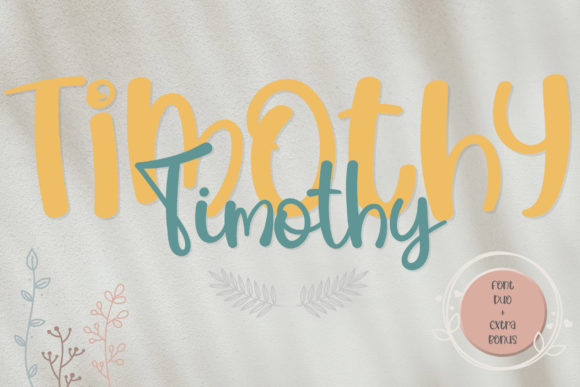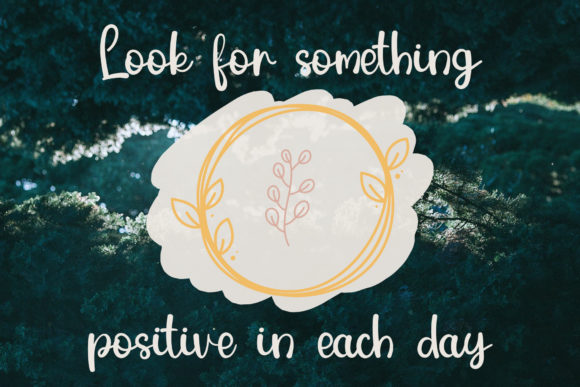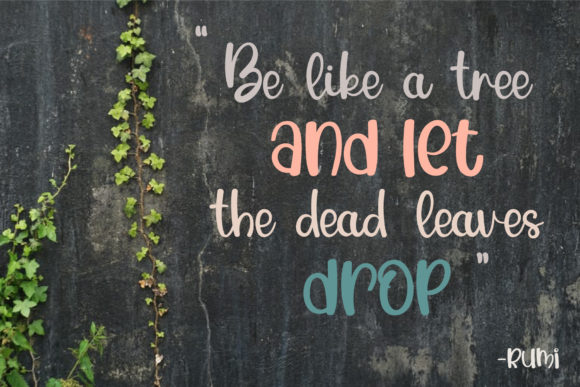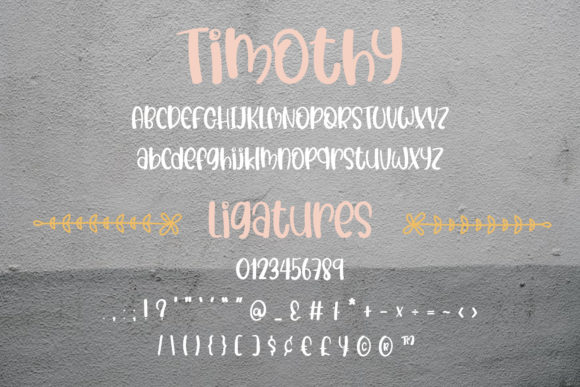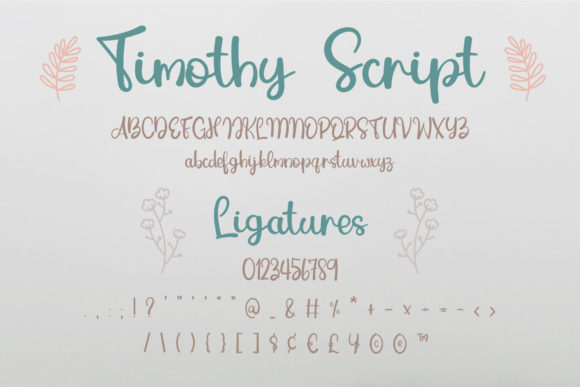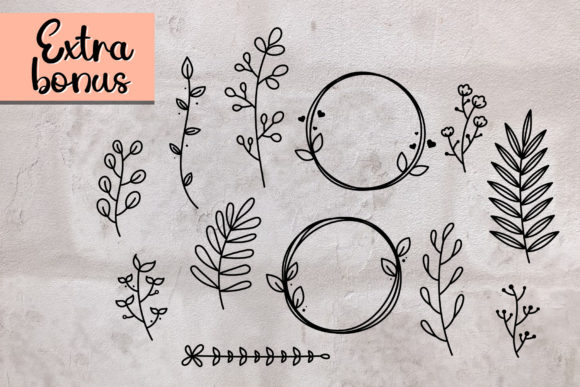
Timothy Font
About Timothy Font
Timothy is a magical script font carefully created with a touch of elegance. Whether you’re looking for fonts for Instagram or calligraphy scripts for DIY projects, this font will turn any creative idea into a true piece of art!